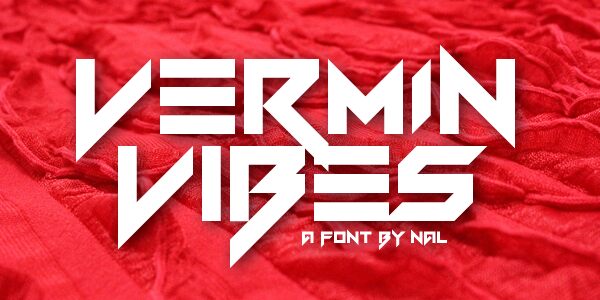
Vermin Vibes by NAL of FontStruct is a free futuristic display font with broad, angular letters and a hard mechanical silhouette. Sharp diagonal cuts, squared openings, and sudden extensions give the lettering the look of custom machinery.
It can turn a game title into part of the interface, with the same severe geometry fitting electronic music posters and science-fiction packaging. Across those uses, the wide forms and blade-like details connect the type directly to screens, vehicles, and engineered objects.